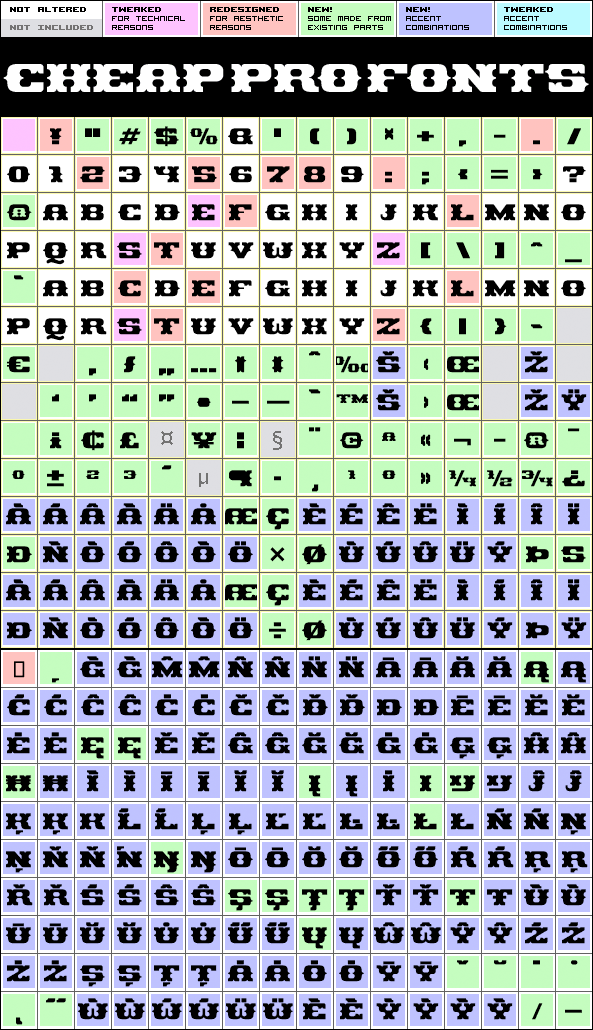
Pirates Gold Pro
Pirates Gold Pro by Levente Halmos
374 glyphs!
(68 in original)
786 class kernpairs
= 16879 kerning pairs
(none in original)
This stylish swashbuckling typeface had a very limited character set, but with the CheapProFonts treatment this buried treasure is ready to be rediscovered. Character map included. "Arrr! Shiver me timbers!"
Pirates Gold Pro is a professionally reworked font that contains an extended character set for setting text in 65 languages requiring more than the basic A-Z!